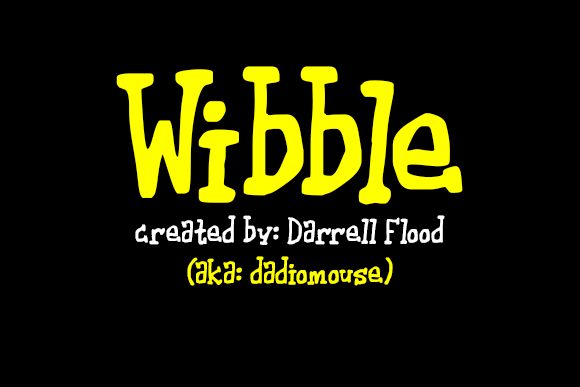
Introducing Wibble Font, the whimsical serif font that will infuse your designs with an irresistible charm. Its playful, hand-drawn lines evoke the carefree spirit of cartoons, adding a touch of whimsy to every project.
Immerse yourself in the world of Wibble Font and let your imagination soar. Whether you're crafting eye-catching headlines, enchanting invitations, or captivating social media posts, Wibble Font will add a touch of magic. Its wobbly, irregular strokes create a dynamic, eye-catching aesthetic that will leave a lasting impression.
With Wibble Font, you can:
- Create unforgettable logos and branding that exudes personality and charm.
- Craft playful invitations for parties, weddings, and special events that will bring a smile to every recipient.
- Design social media posts that pop with character and engage your audience.
- Add a touch of whimsy to your website designs, making them both visually appealing and memorable.
Wibble Font is the perfect choice for designers looking to bring a touch of fun and originality to their work. Its versatility knows no bounds, from children's books to greeting cards, packaging designs, and more.
So why settle for ordinary when you can have extraordinary? Download Wibble Font today and unlock a world of creative possibilities. Let its whimsical charm captivate your audience and transform your designs into masterpieces that will make a lasting impression.